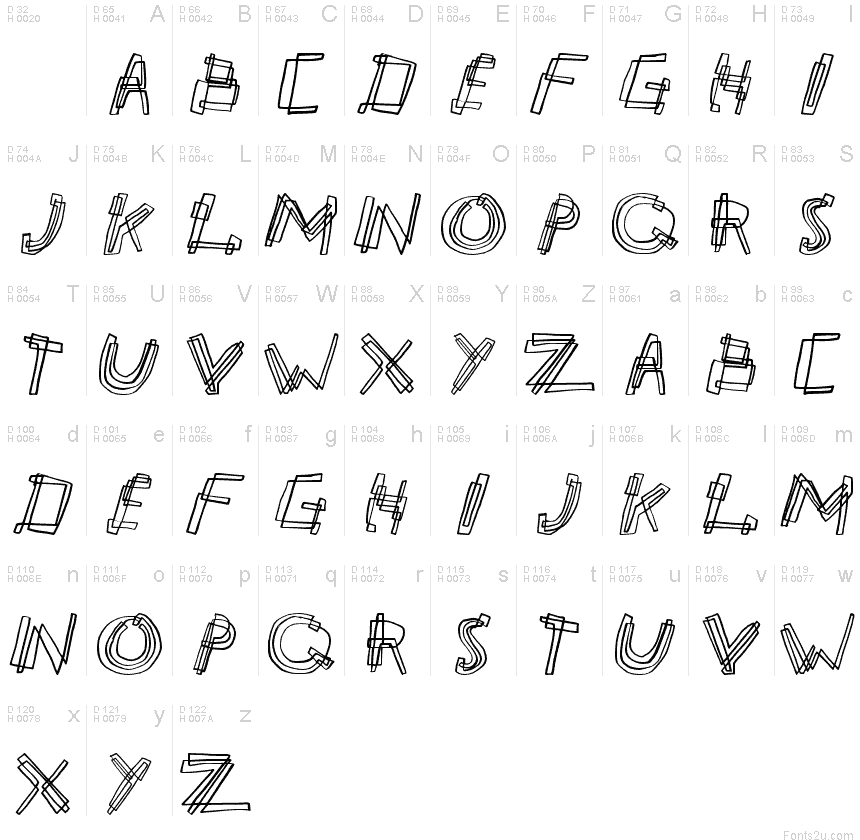
Partyline by Dylan Tellesen and Max Infeld of Xerographer.com is a free graffiti script with loose, overlapping outlines. Its tall letters lean and buckle as if rapidly redrawn. Uneven paths and doubled contours give the alphabet a restless marker-sketch quality.
A music poster is its strongest setting, since the layered lines resemble improvised gig lettering. It also fits skate merchandise and club flyers. On album covers, the lettering becomes part of the artwork instead of a neutral title.